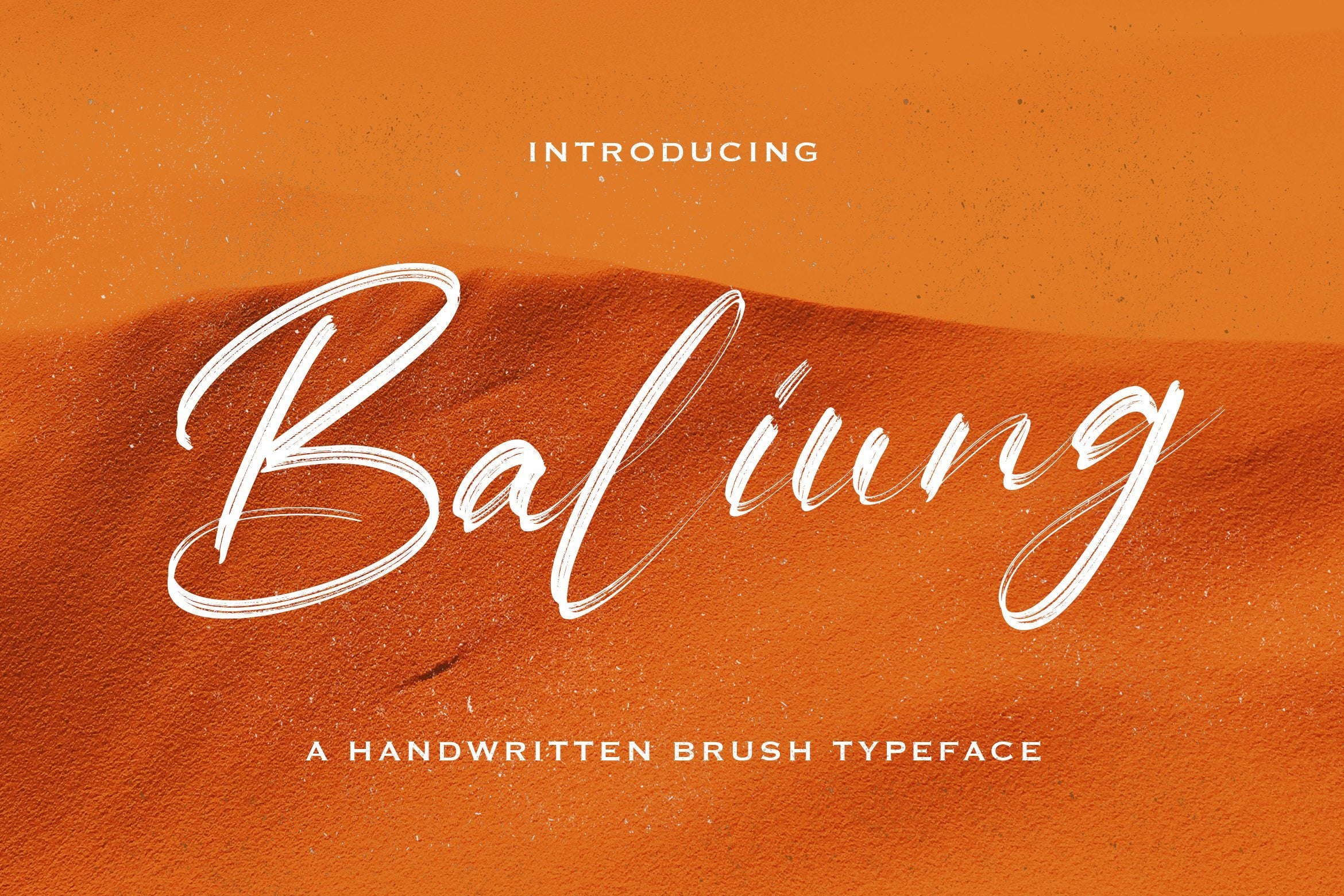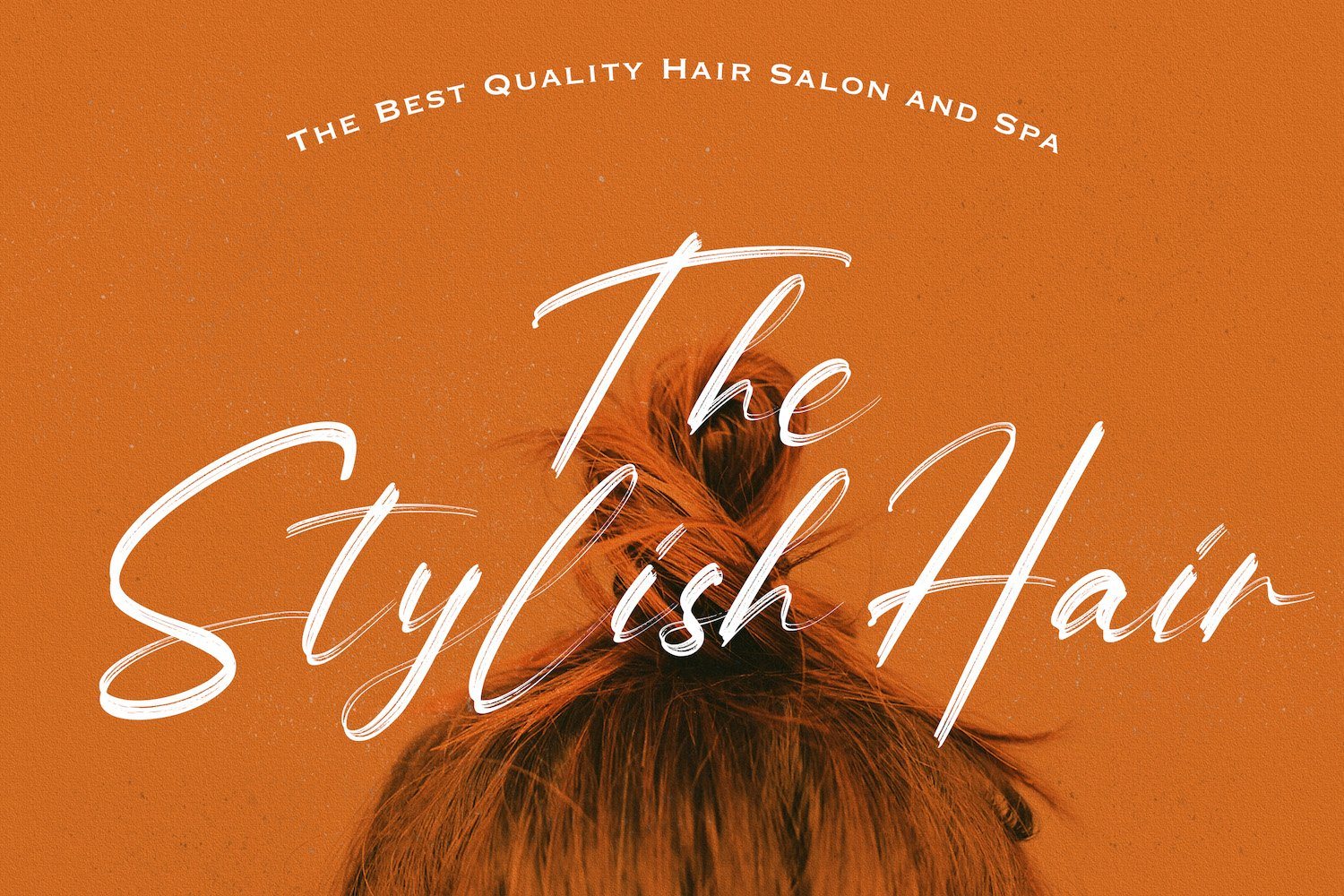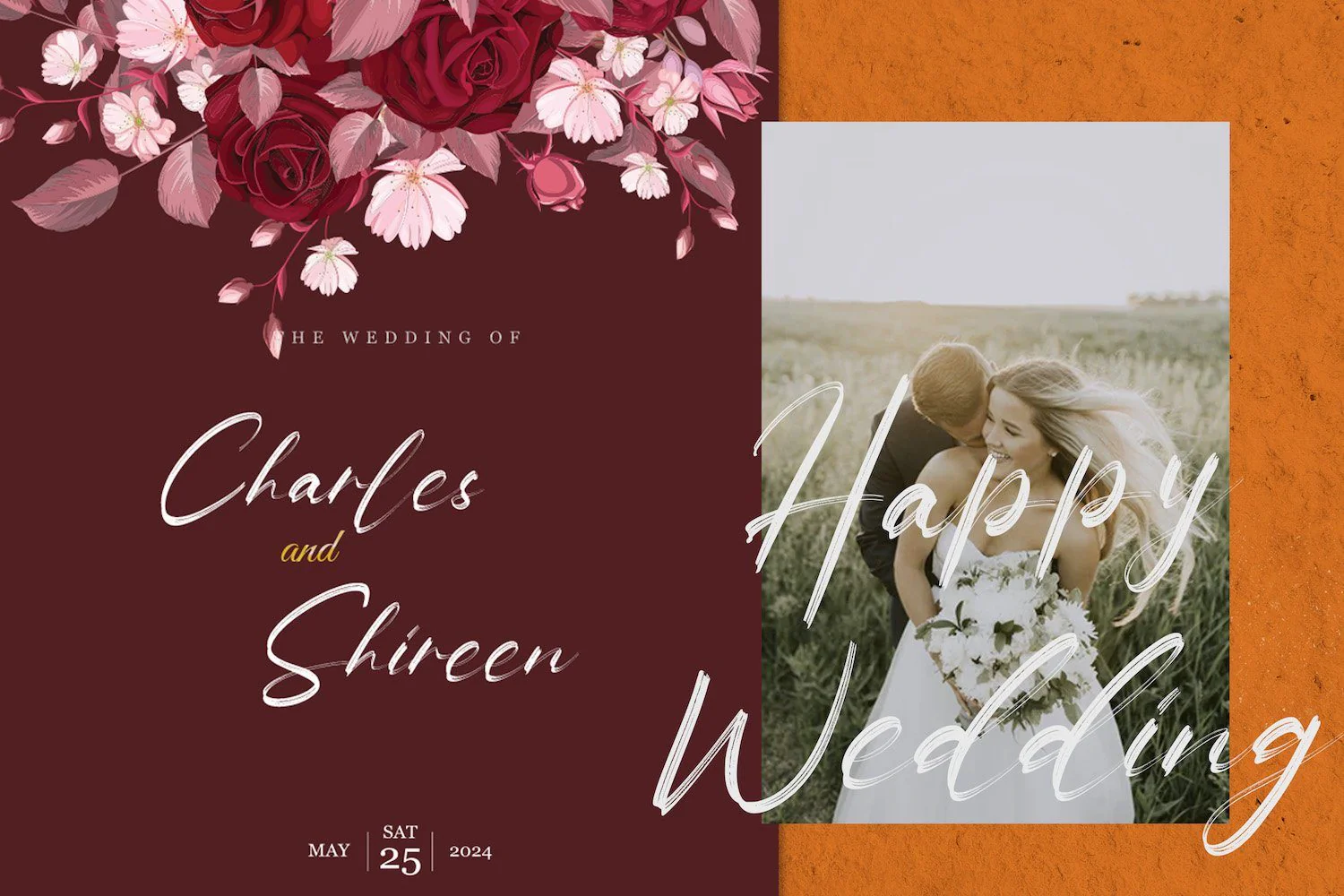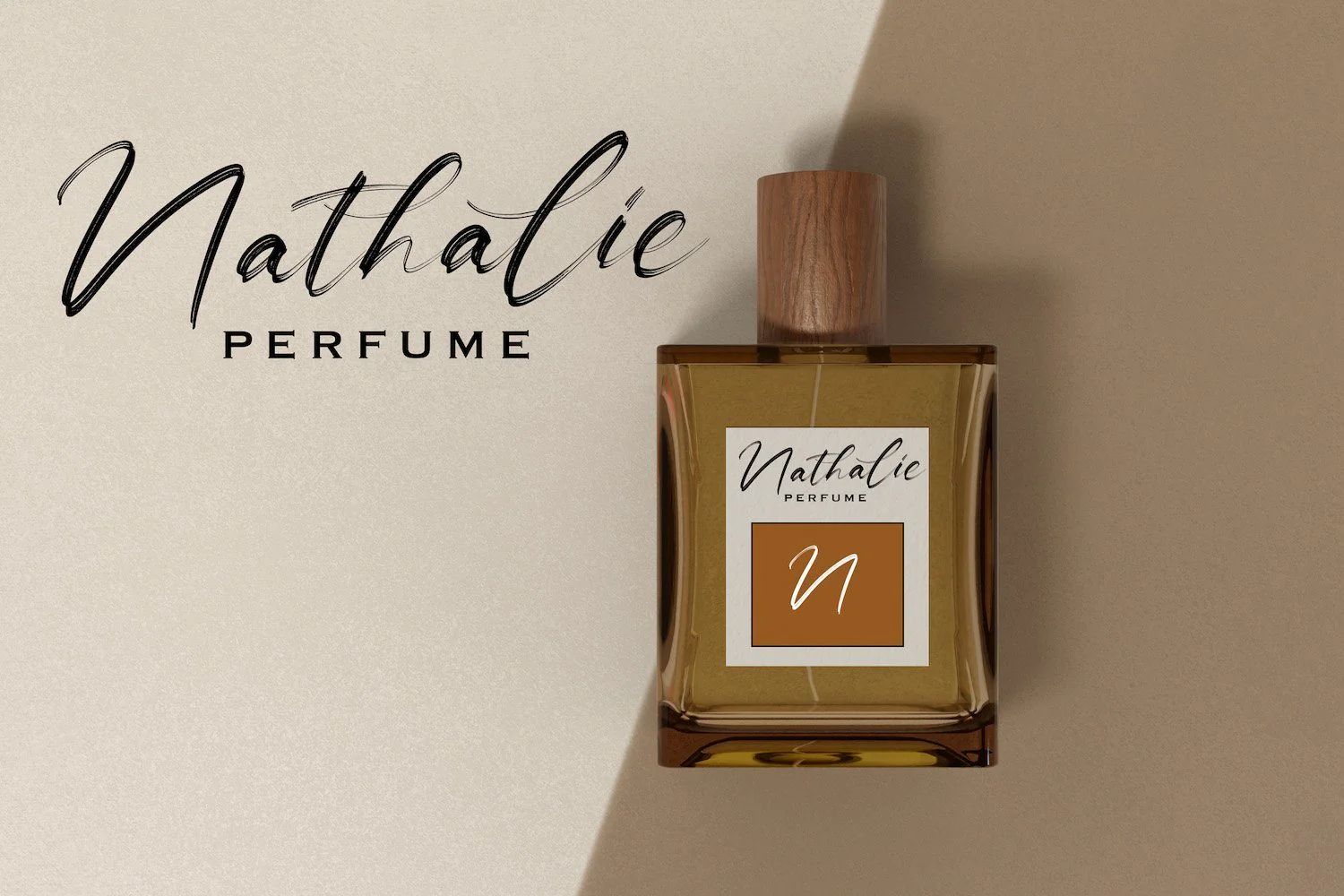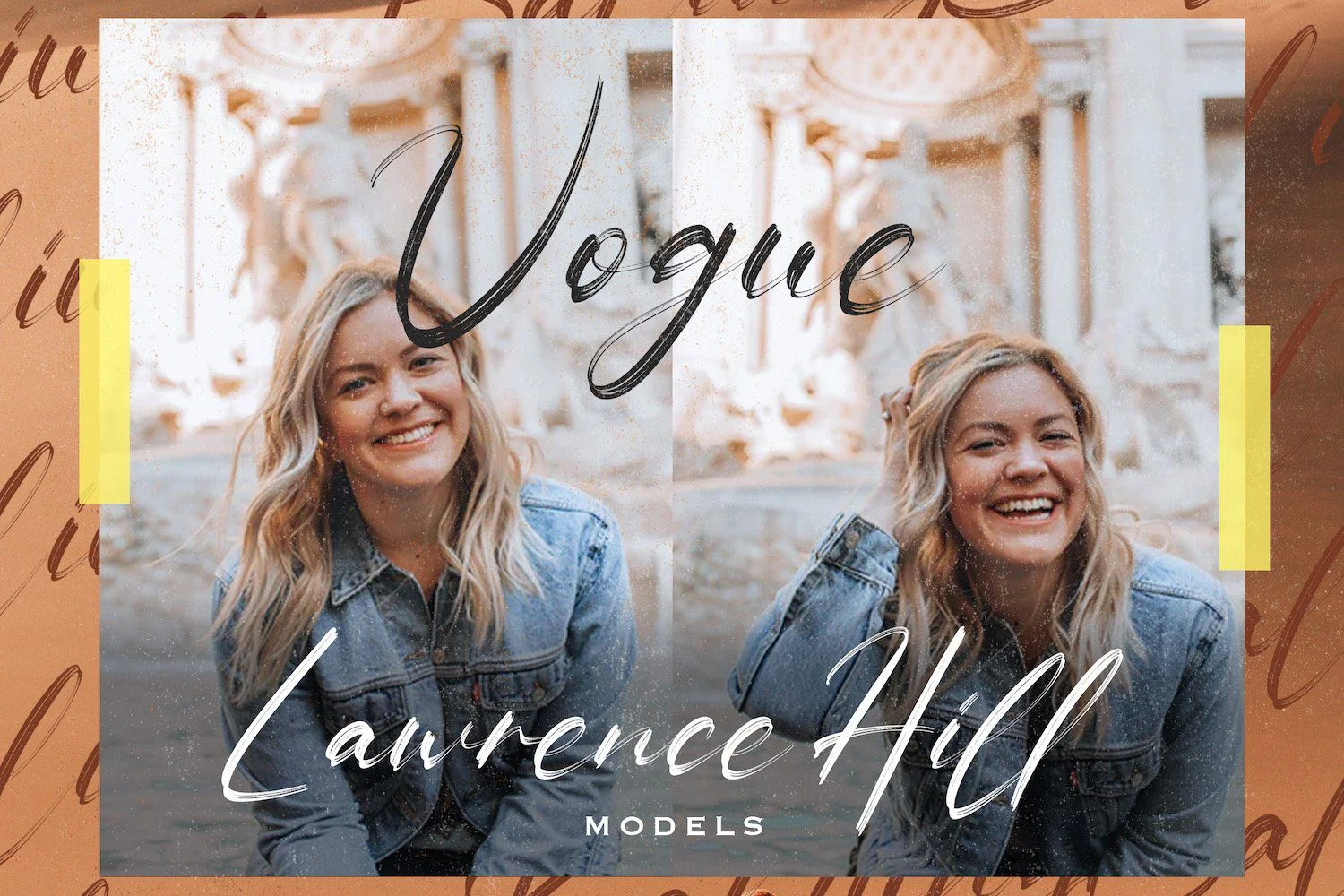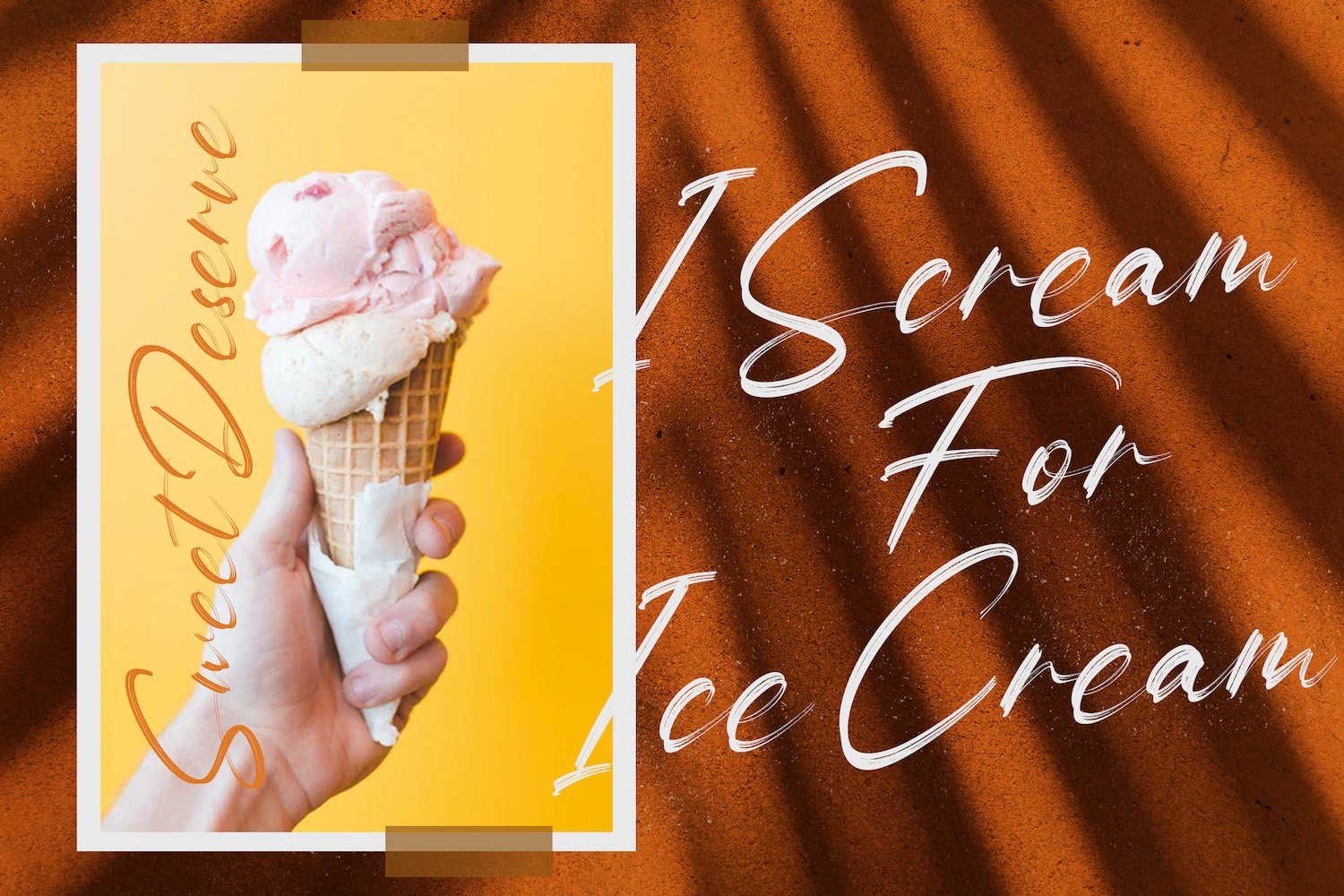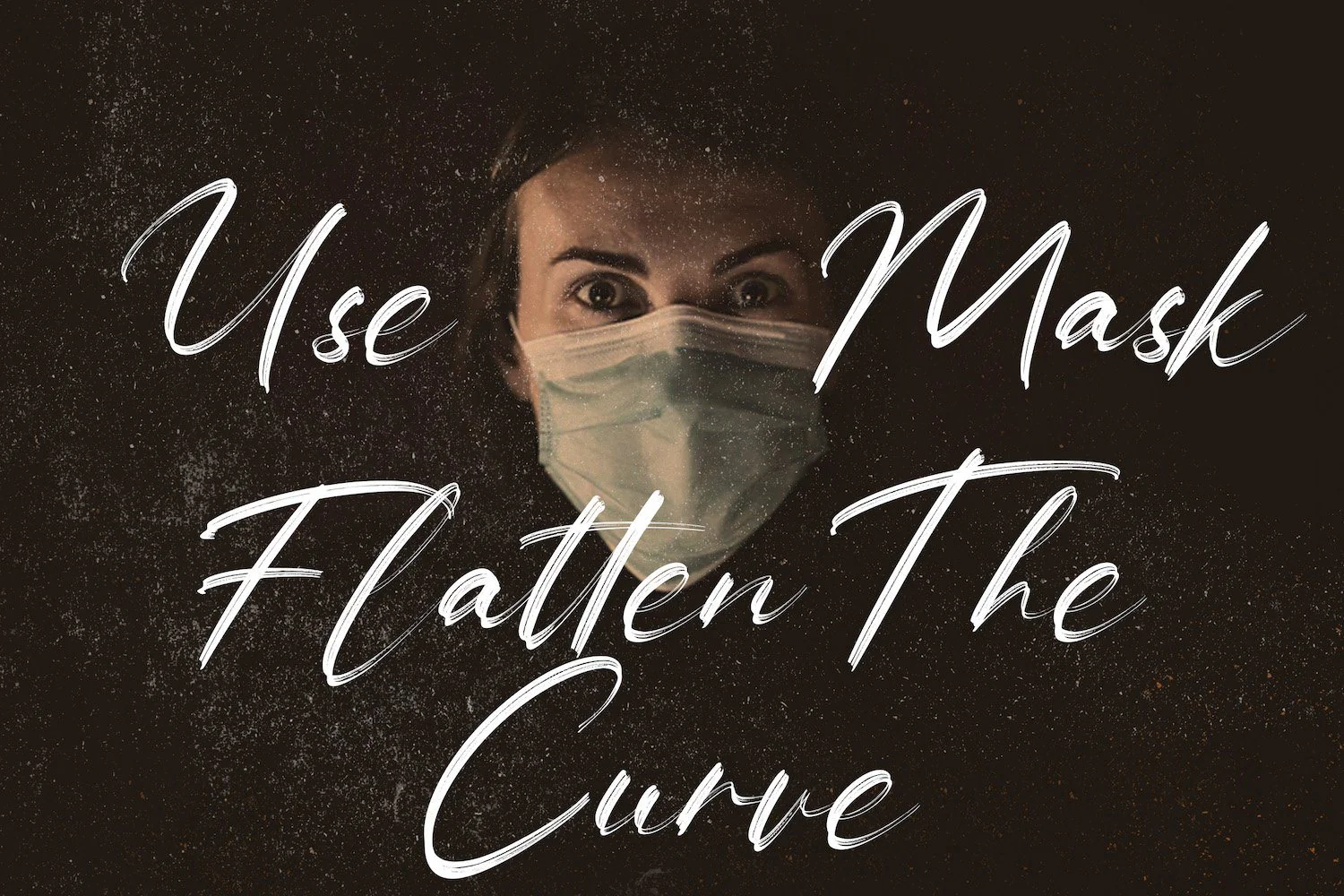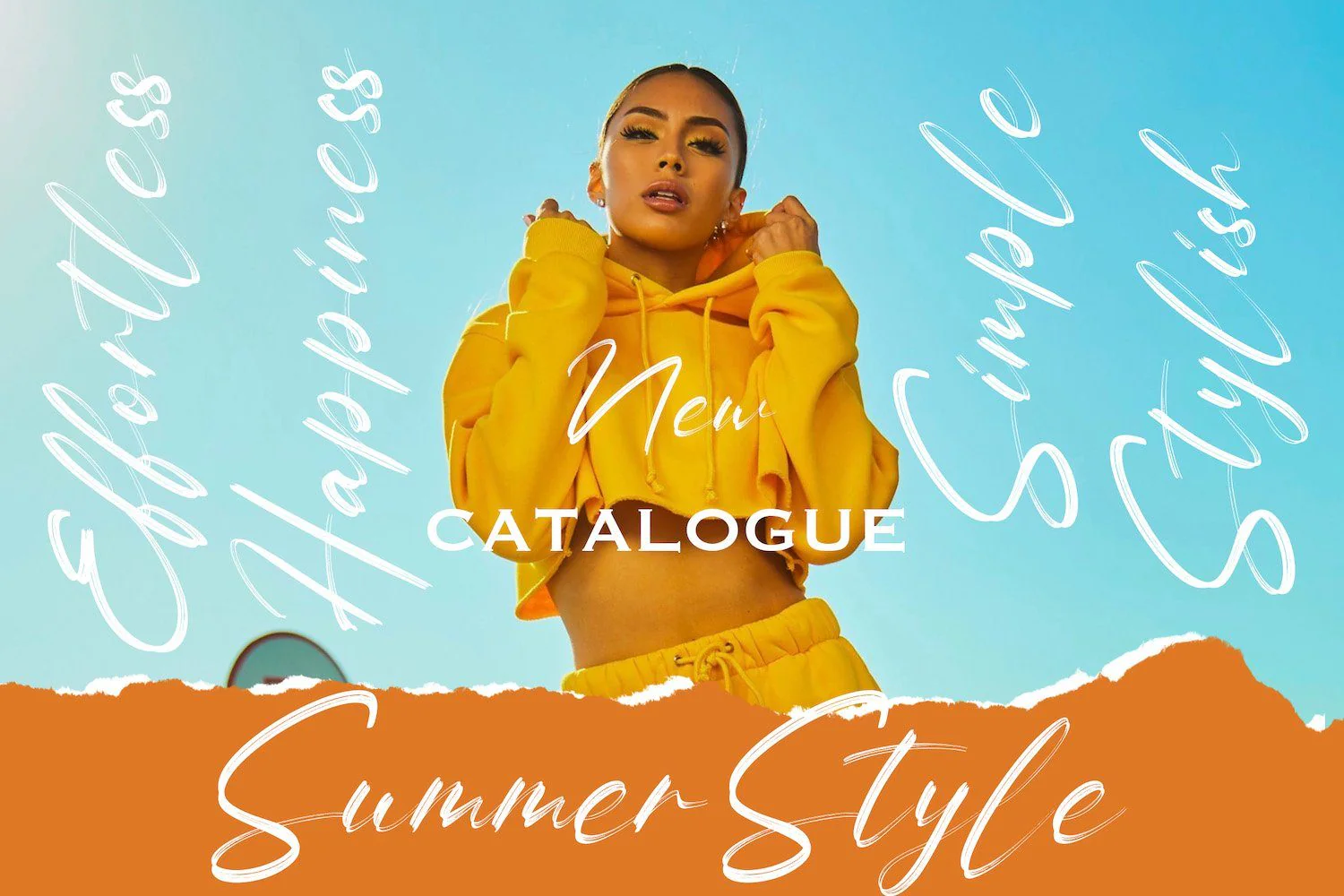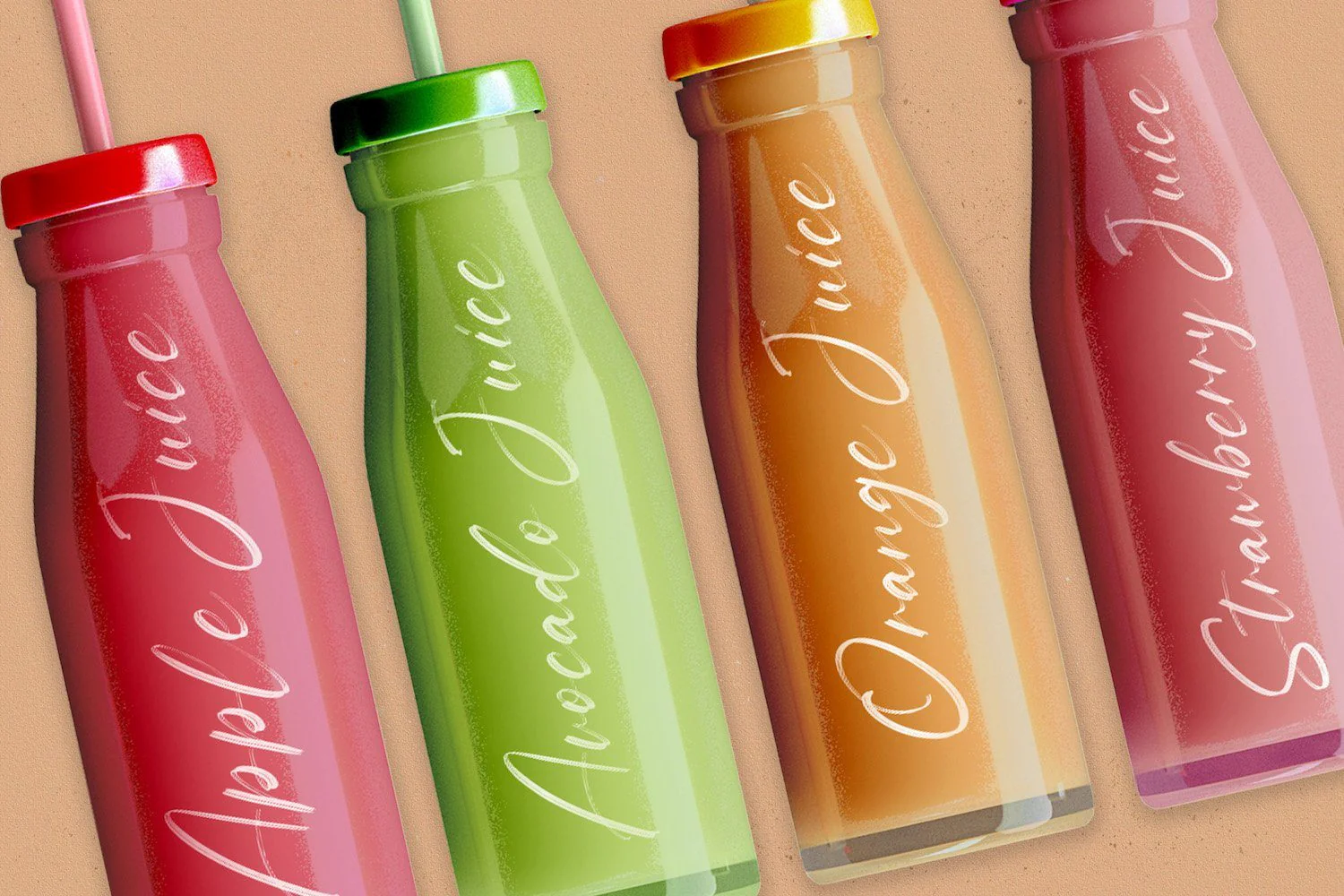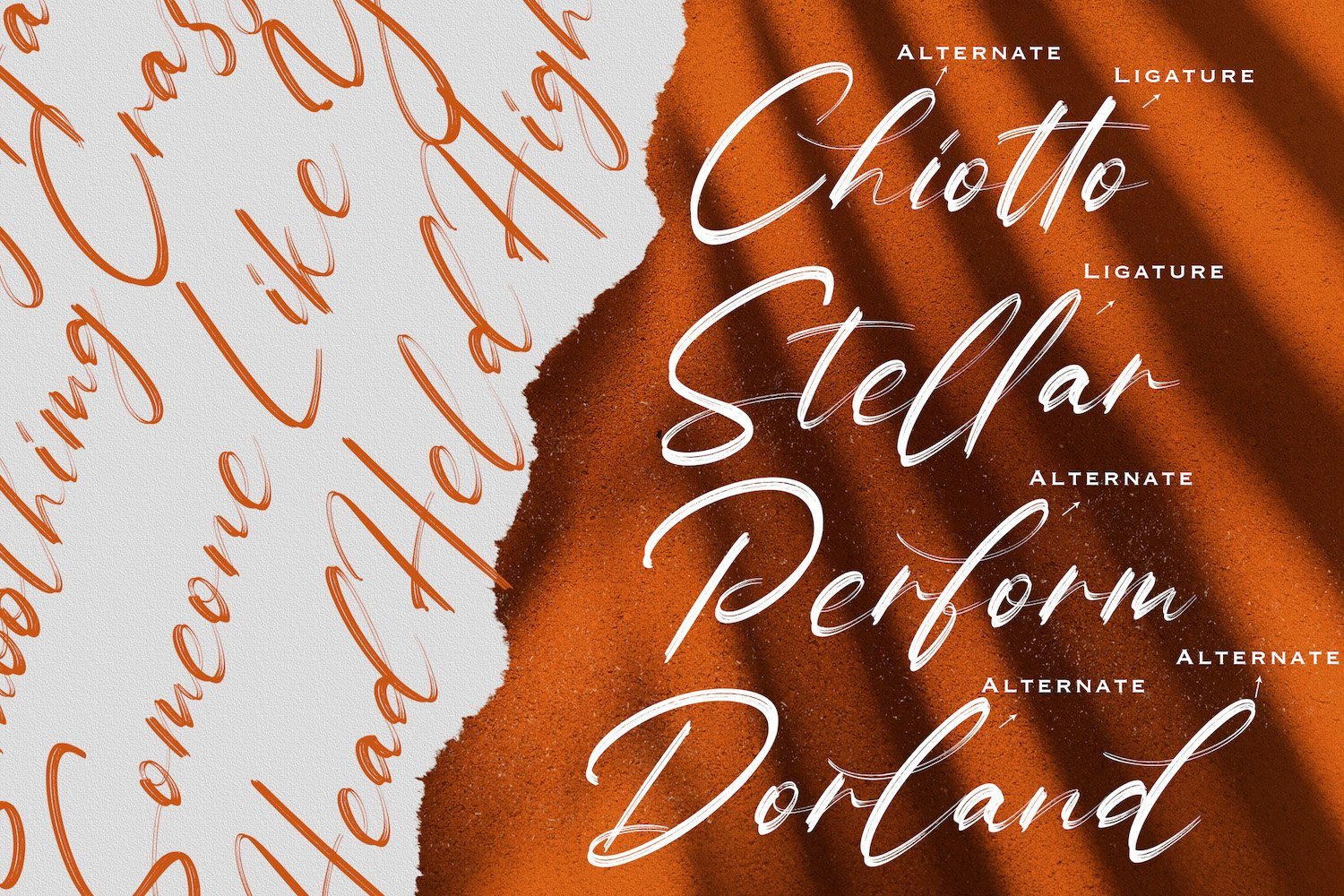
Baliung - Handwritten Font
Introducing Baliung - Handwritten Font
Baliung is a Script Font with Handwritten Brush Style. The Baliung font made with digital brush pen strokes that making this font look authentic. This font is perfect for fashion brand, wedding invitation, business card, logo brand, signature, and then calligraphy.
Introducing Baliung - Handwritten Font
Baliung is a Script Font with Handwritten Brush Style. The Baliung font made with digital brush pen strokes that making this font look authentic. This font is perfect for fashion brand, wedding invitation, business card, logo brand, signature, and then calligraphy.